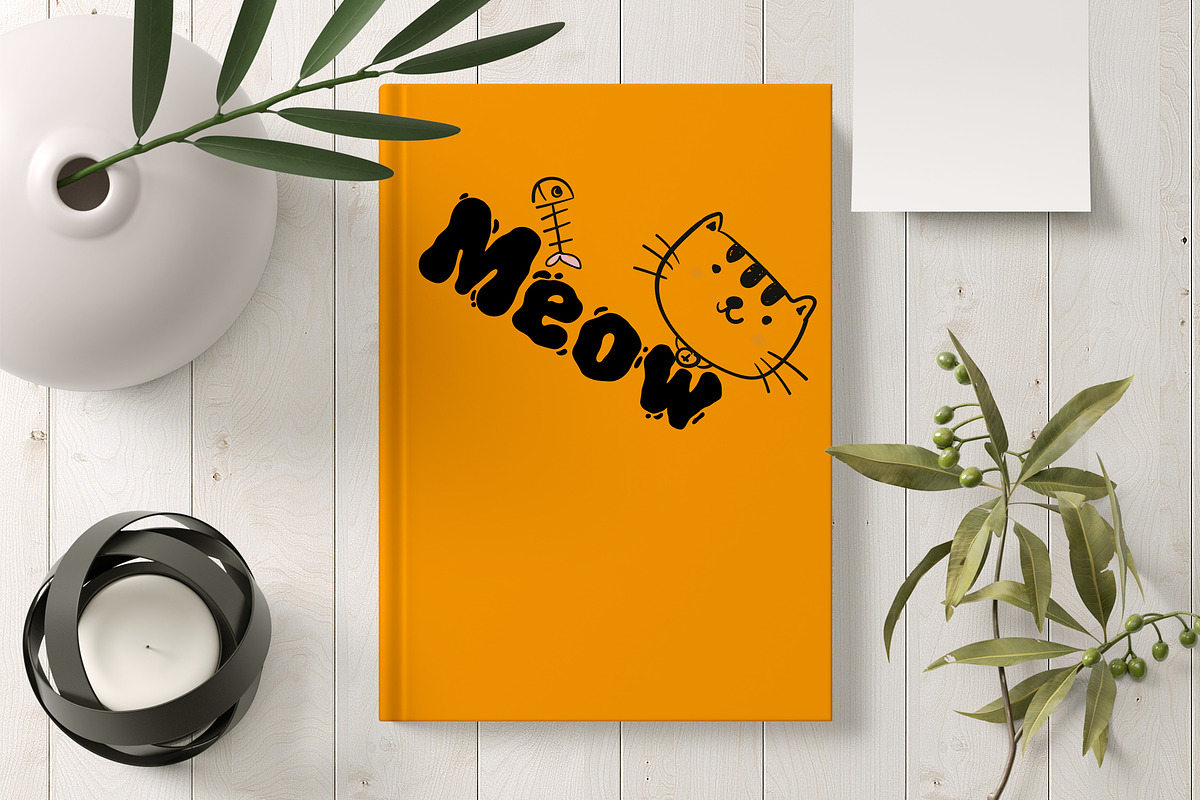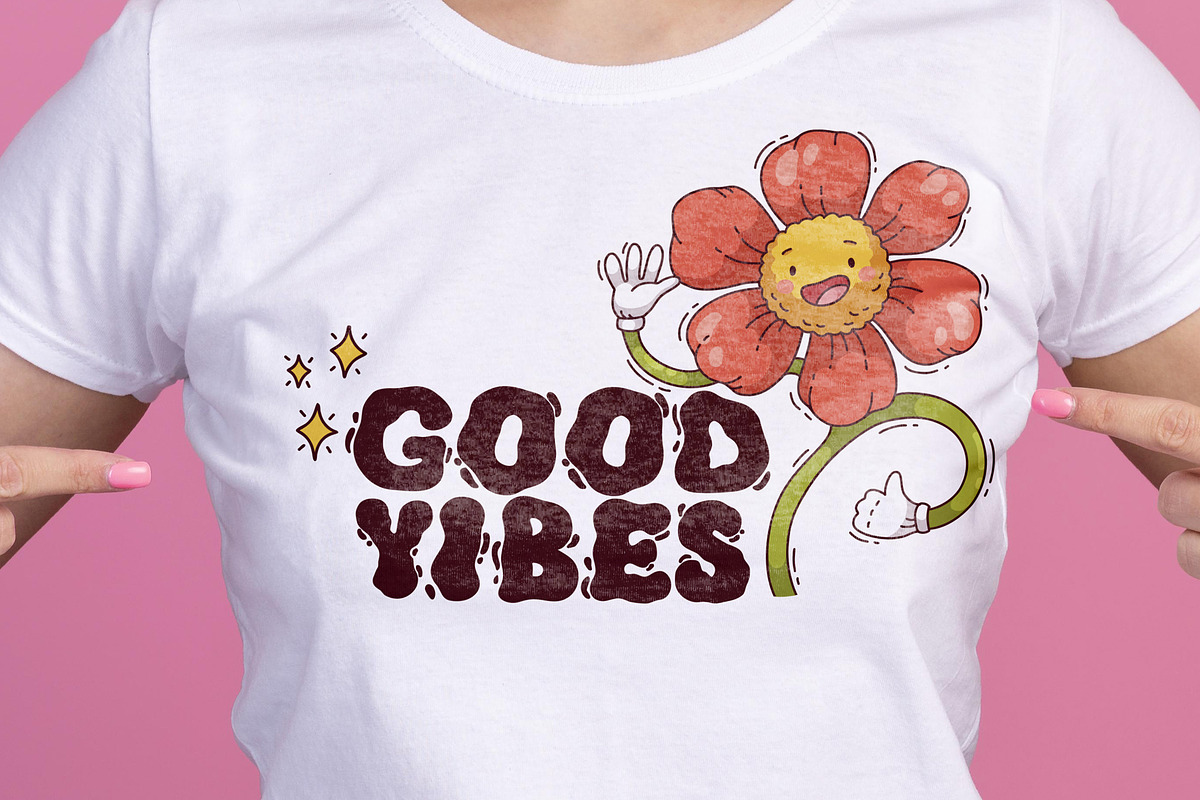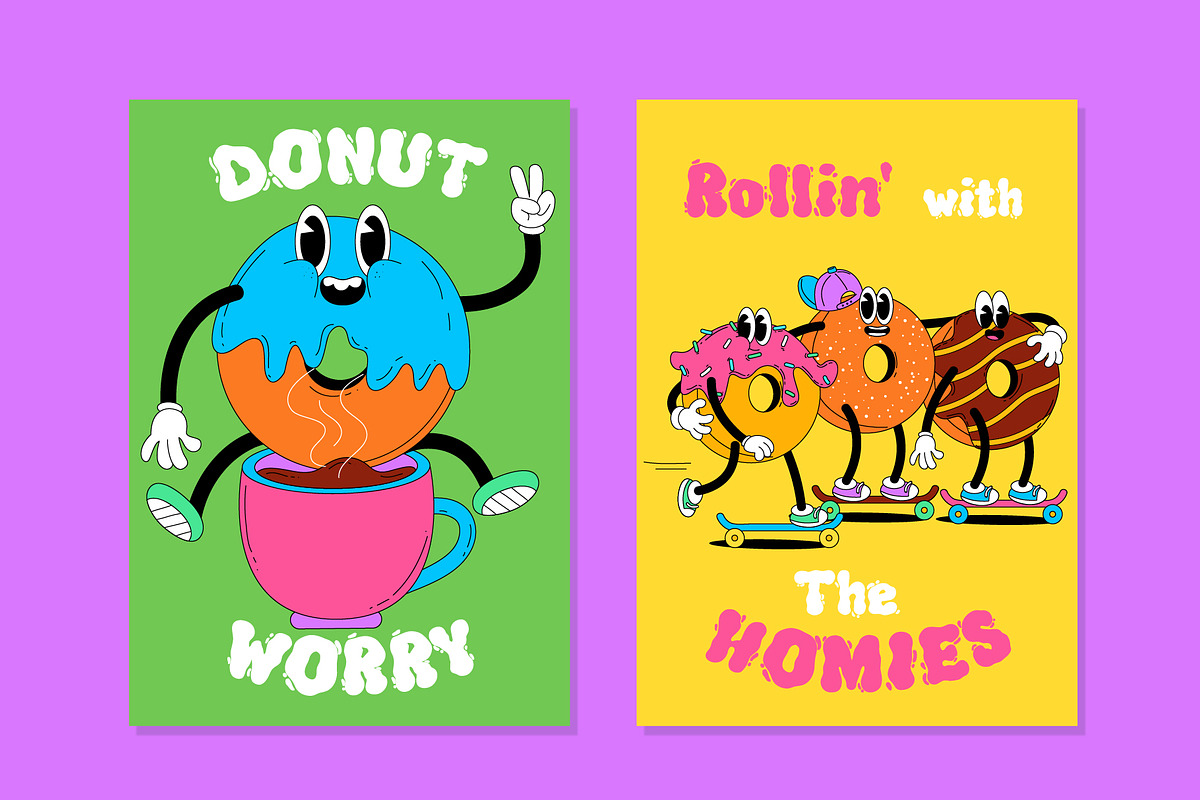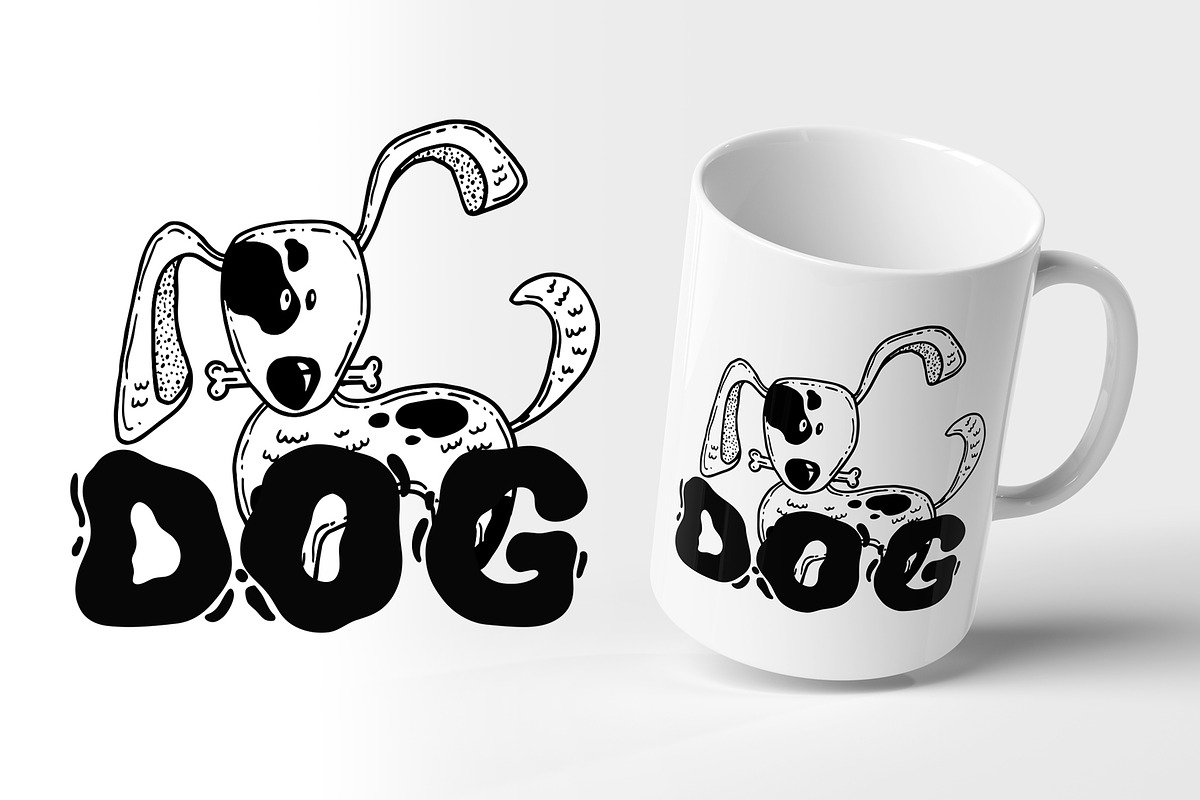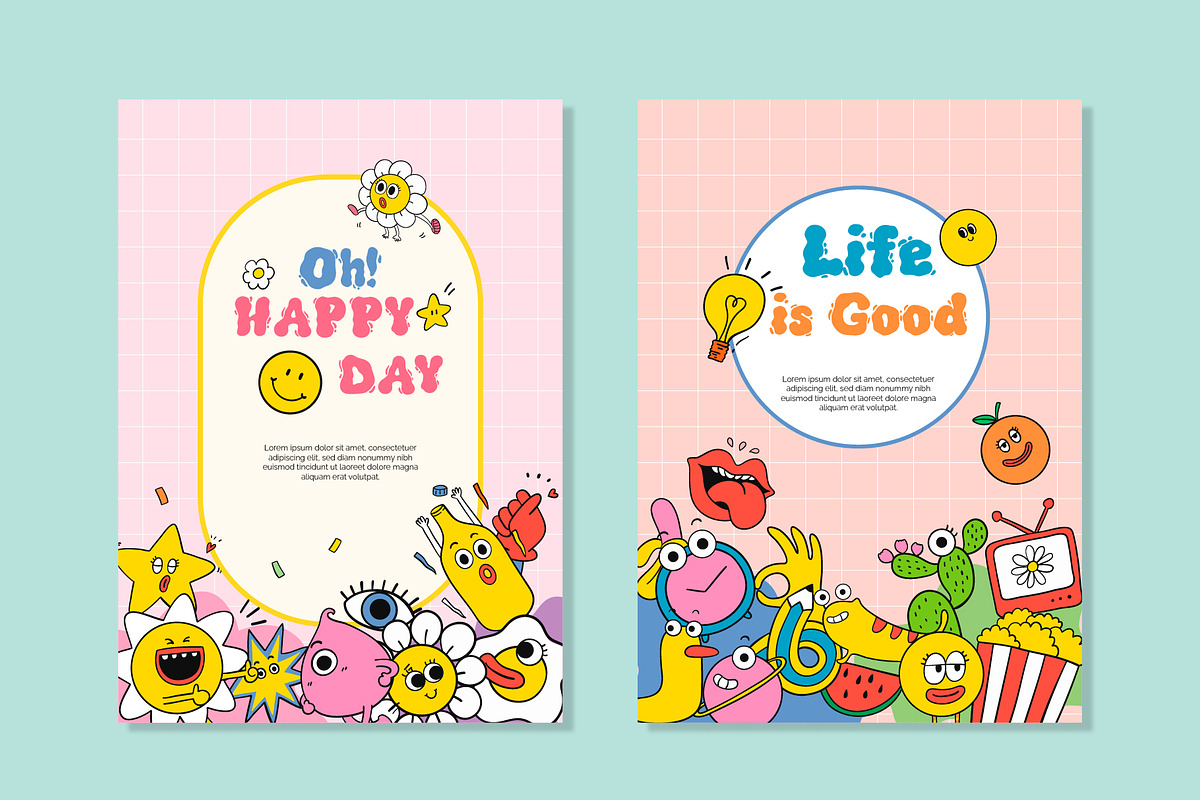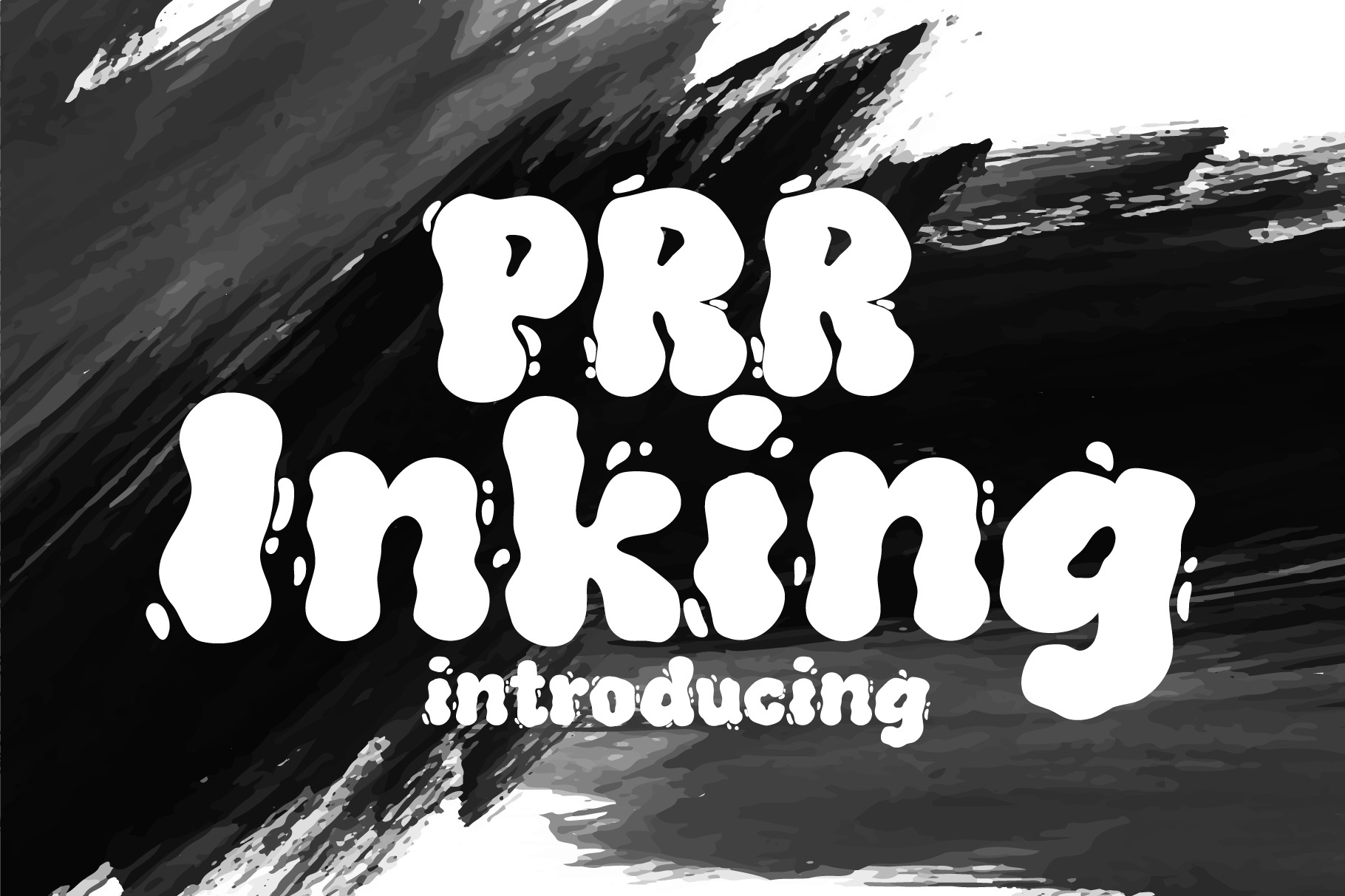
PRR Inking Font
With its distinctive and playful design, this PRR Inking Font can be used in a variety of ways. Such as t-shirts, sportswear, logos, advertisements, clothing, and much more. The font's unique and distinct features make it stand out and add a touch of personality to any design.